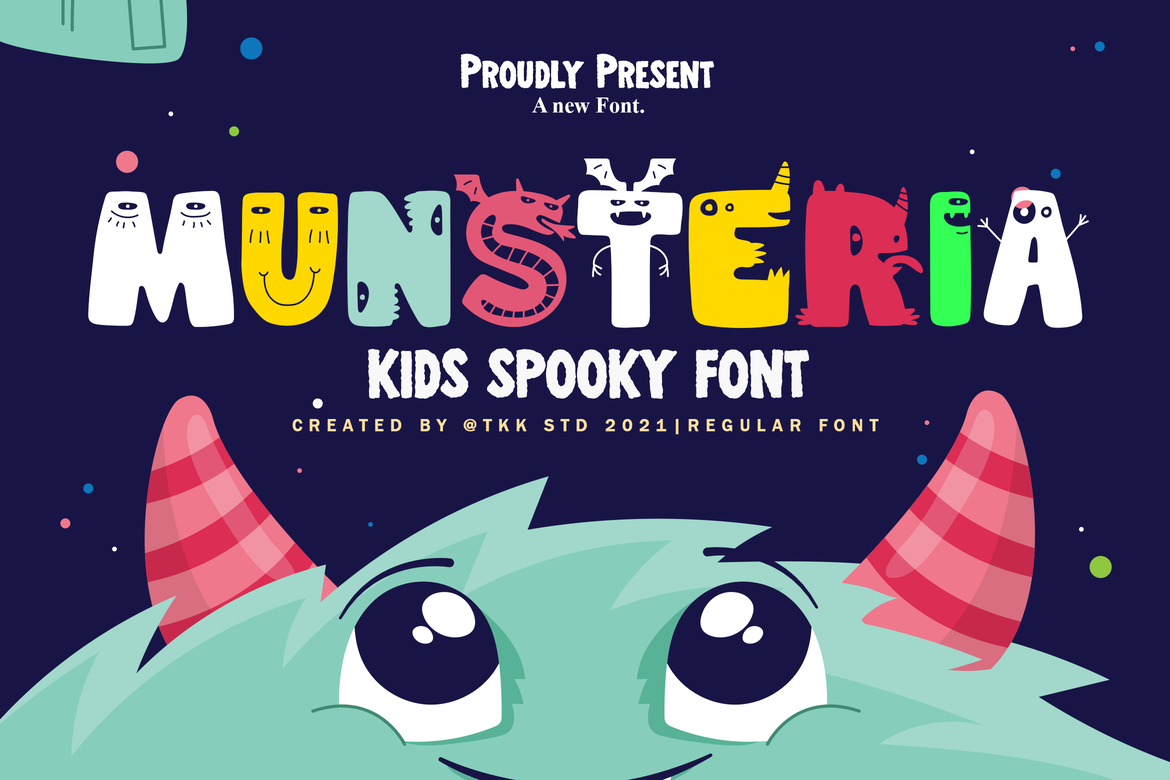
MUNSTERIA funny font is a kid's friendly spooky monster for your projects. When we talk about monster, it's not always the one that really scary. We can all have a cute, adorable, and friendly monster as well. MUNSTERIA comes just like that.
Suit perfectly for Online Games, poster, movie title, fast food menu, magazine, youtube covers, youtube thumbnails, social media page covers and so on...